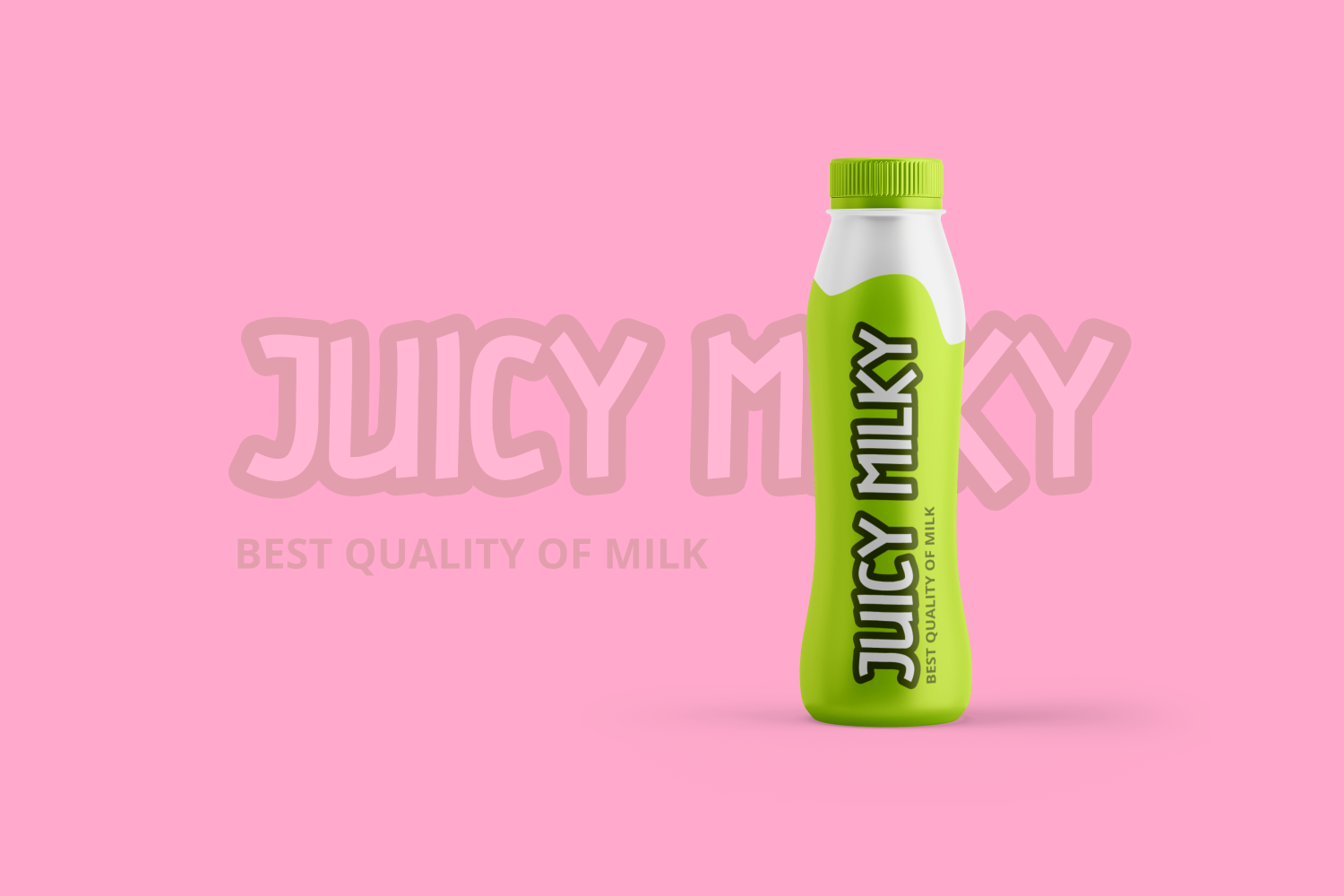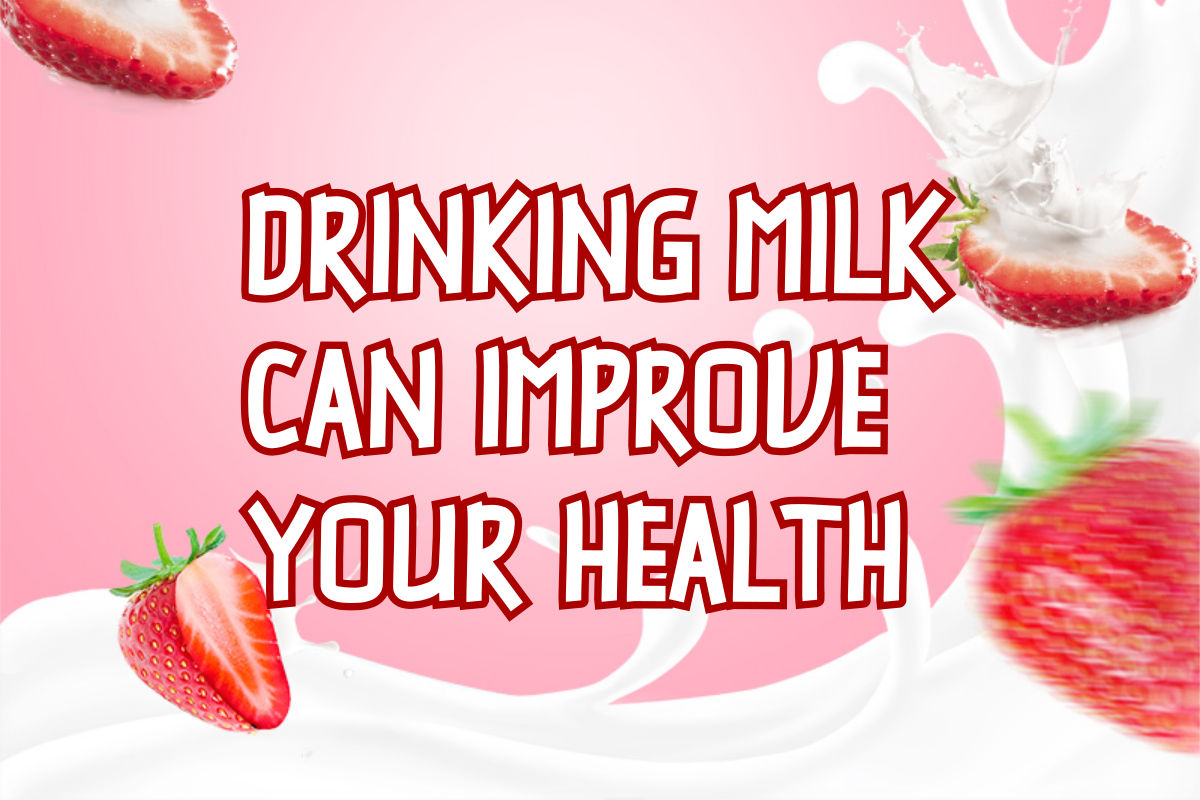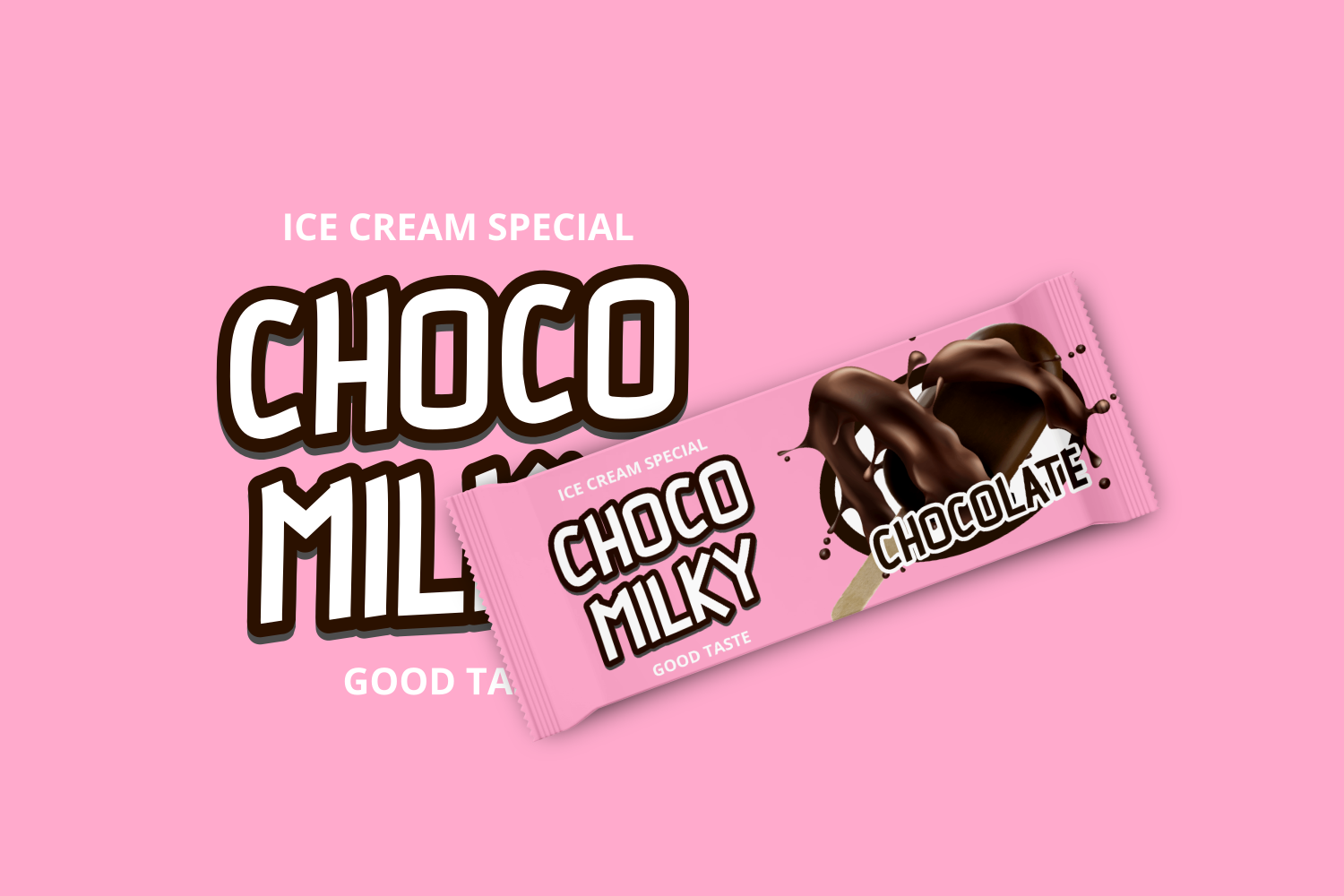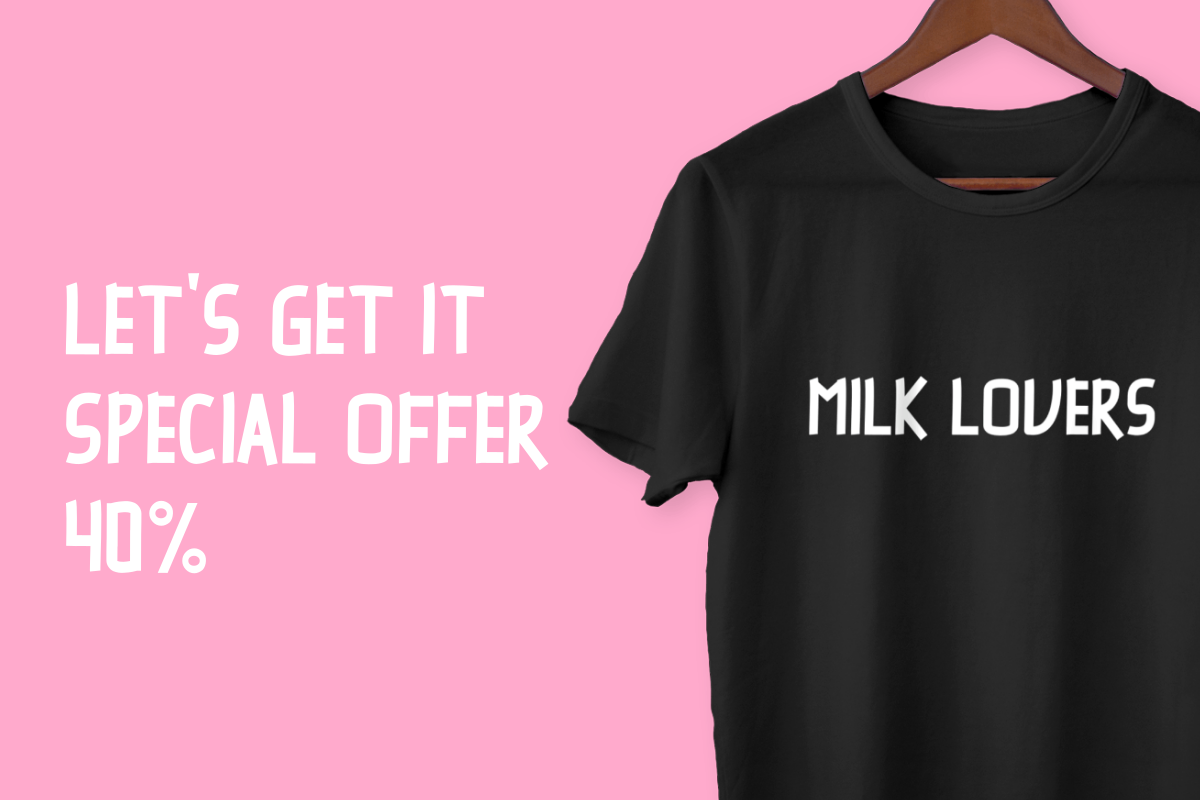
Juicy Milky Free Font
Juicy Milky Free Font is a cute font that is suitable for branding, packaging, logos, posters, product names, and others. This free typeface was designed by the talented Rahagita. If you like it don’t forget to check out the full version.